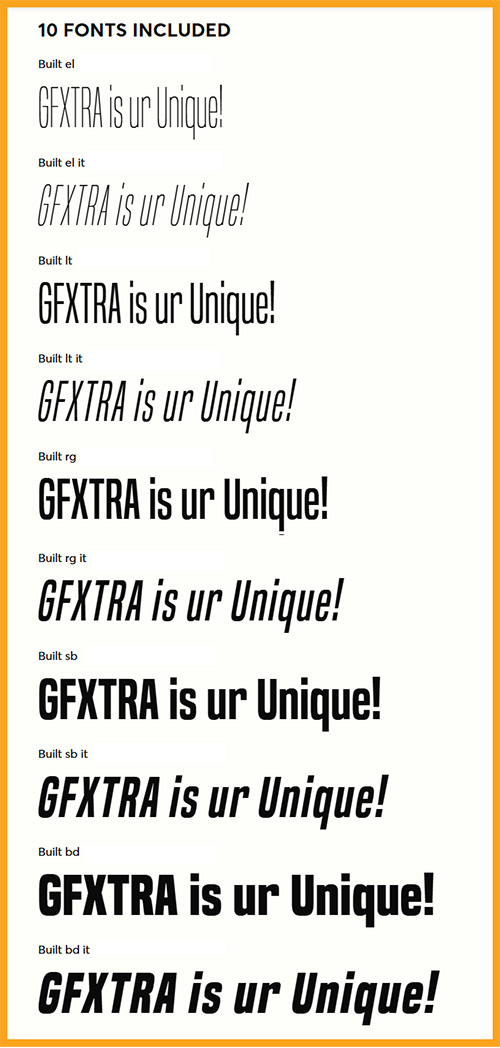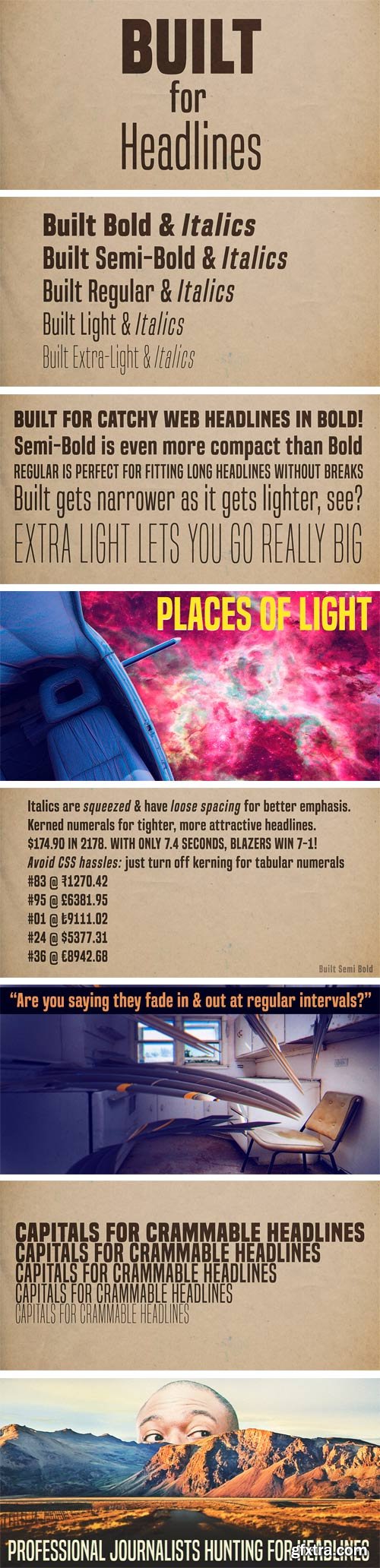
- Built has one job: making solid, compact headlines onscreen. Designed with trust and neutrality in mind, Built’s wraparound shapes speak your headlines in newsy voice. Subtle curls conjure a feeling of a different news era while not coming across as particularly old-fashioned. The Built family comes in five weights, from extra-light to bold. But not your typical thin to fat linear range. When you’re designing for the screen, there are practical limitations with light fonts. These days, with variable resolutions and screen sizes, going lighter means going bigger. Much bigger. And it’s no fun if your words end up falling off the line. Built actually gets narrower as it gets lighter. Now you can can scale way up and still have room to spare. Set attractive, oversized page titles without worrying if the words will fit. Tabular (monospace) numerals are handy when you have lists of numbers to align. In headlines, tabular numerals don’t look so hot–and they waste space. Lots of fonts let you choose between proportional and tabular numerals. OpenType technology lets designers access different types of numerals, but implementing OpenType features on the web isn’t fun–it’s not always practical. Built has a simple solution: if you turn off hinting, numerals, monetary symbols and most math symbols line up. Easy. Built has fractions, primes, numeric ordinals, compact accents, the Indian rupee and the Turkish lira. As Built loses weight, its asterisk sprouts more legs, retaining it’s presence even in Extra-Light. The italics are squeezed thin and loosened up on the sides, creating cool emphasis that’s more than just a slant. Built is available in Extra-Light, Light, Regular, Semi-Bold and Bold plus italics.